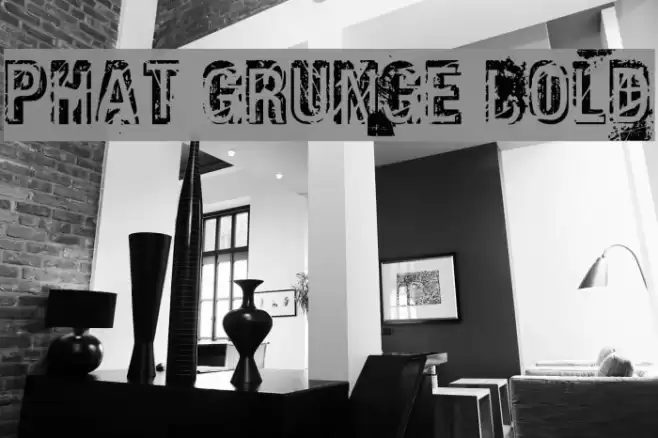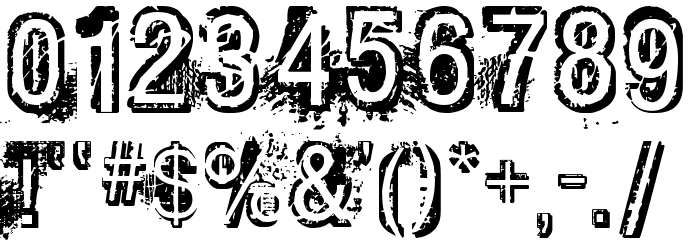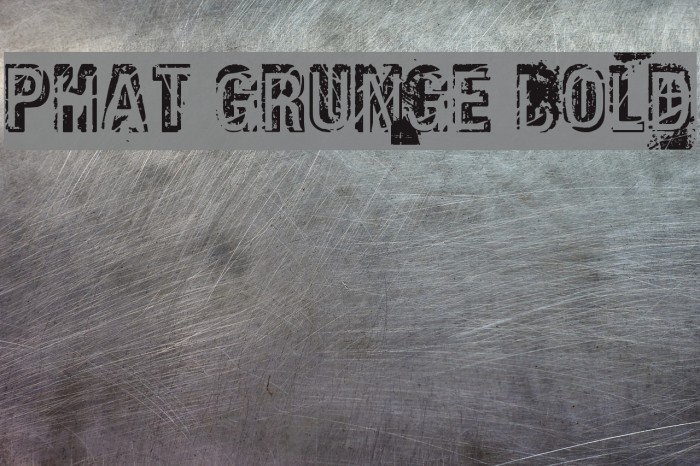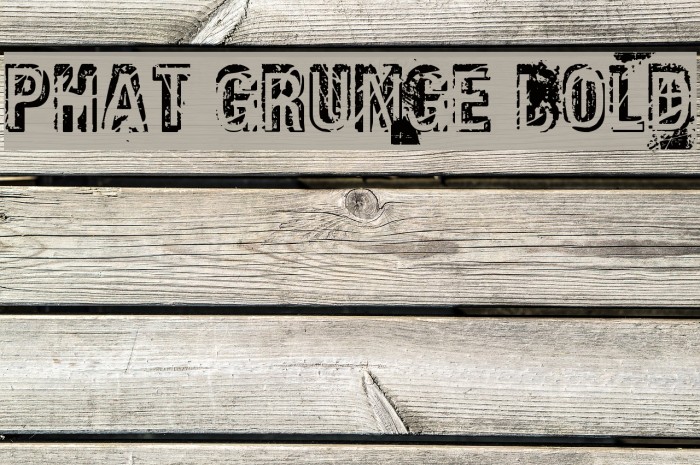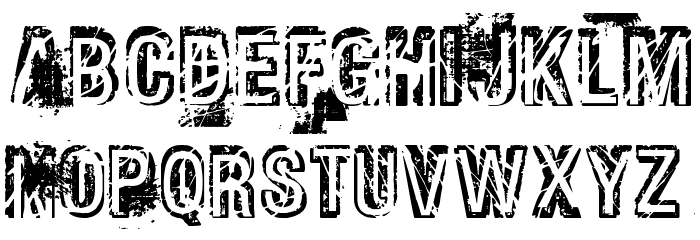
Phat Grunge Bold Font
Phat Grunge Bold Description
This font features a bold, distressed style with a grunge aesthetic. Each character appears as if it has been weathered or eroded, giving it a rugged and edgy appearance. The letters are uppercase and bold, with a thick stroke that is partially filled in with rough, uneven textures. This creates a high-contrast look that is both eye-catching and dynamic. The numbers and special characters follow the same design, maintaining consistency throughout the set. The overall style is reminiscent of urban street art or vintage rock band posters, making it ideal for projects that require a bold statement.
A bold, distressed font with a grunge aesthetic and high contrast from Uncategorized fonts.
- Proposed Projects: Ideal for music album covers, event posters, streetwear branding, or any project needing a bold, edgy look.
- Overall Style: Grunge, Urban, Edgy
- Use Case: Headlines, Posters, Branding